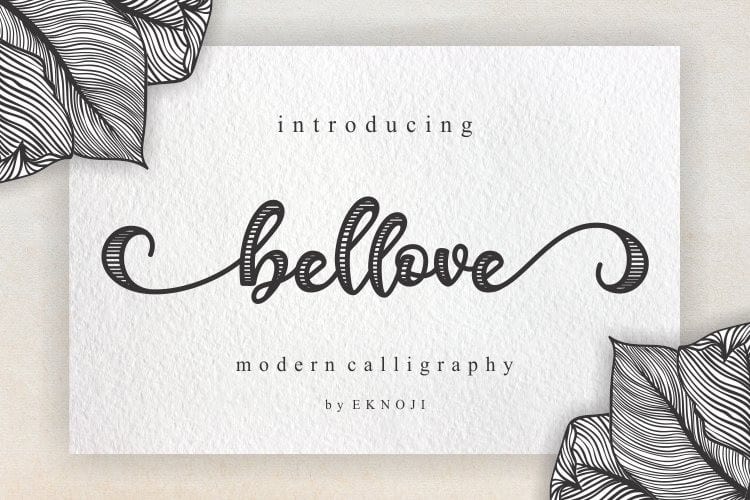
Bellove Script Font
Bellove Script Font. This typeface was designed by hand-writing, and it has a modern and unique forms of calligraphy, the writing style is very natural. This font will looks awesome and amazing in many way to your latest project.
Bellove is perfect for many different project such as logos & branding, invitation, stationery, wedding designs, social media posts, advertisements, product packaging, product designs, label, photography, watermark, special events or anything.